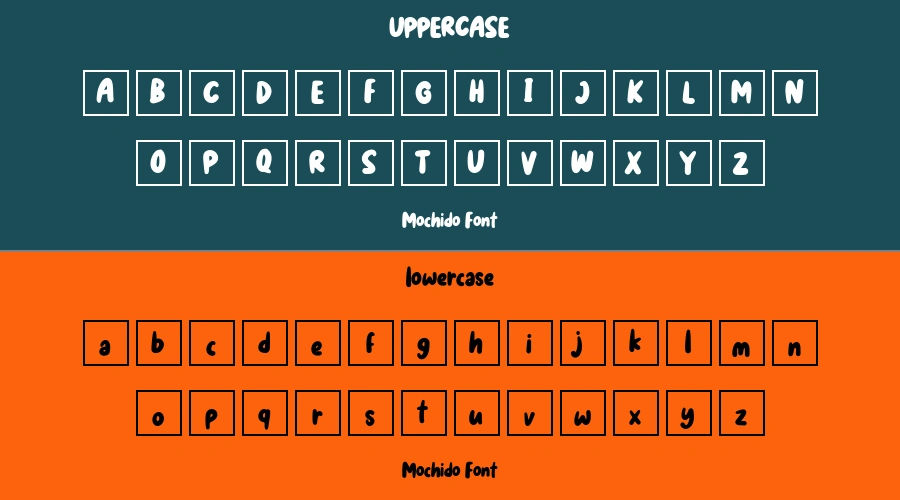
About Mochido Font
Designed with precision, Mochido Font merges natural flow with accuracy in every character. This versatility makes it particularly effective for architectural plans, where flexibility and industry recognition directly impact communication quality. Each letterform demonstrates meticulous craftsmanship.
Technical excellence shines through elements like humanist proportions and initial forms, enhancing typographic versatility. In brand logos settings, Mochido Font proves its worth through superior OCR compatibility. The thoughtful execution of terminal style and brand potential ensures professional results.